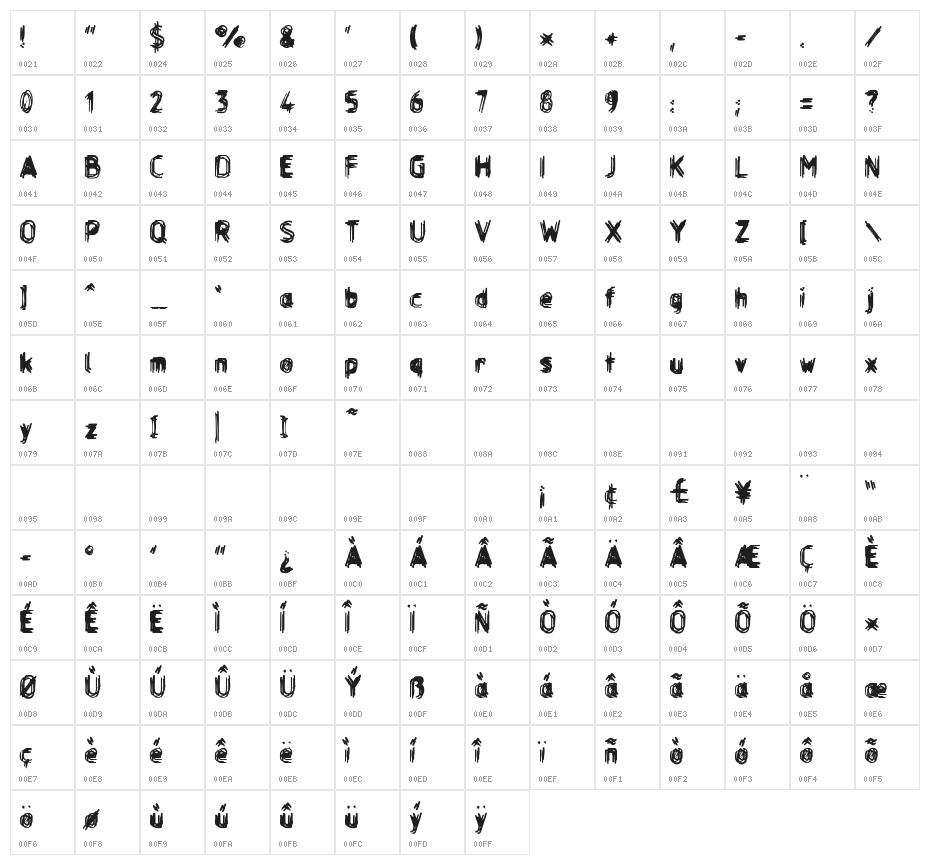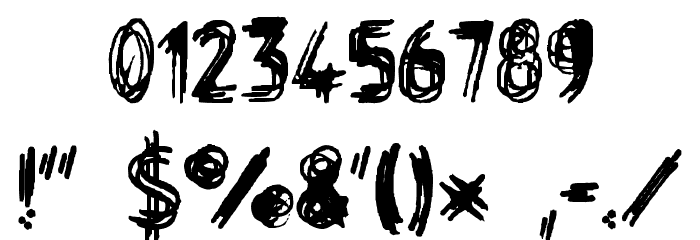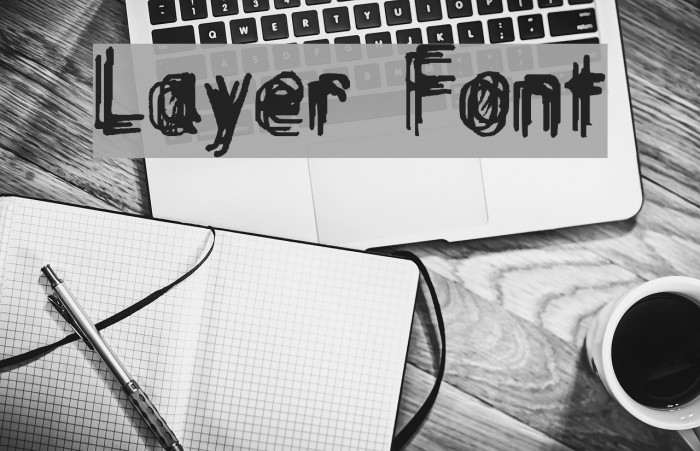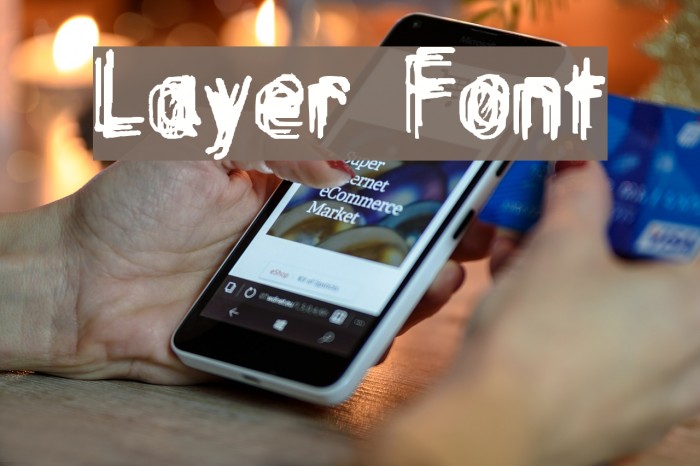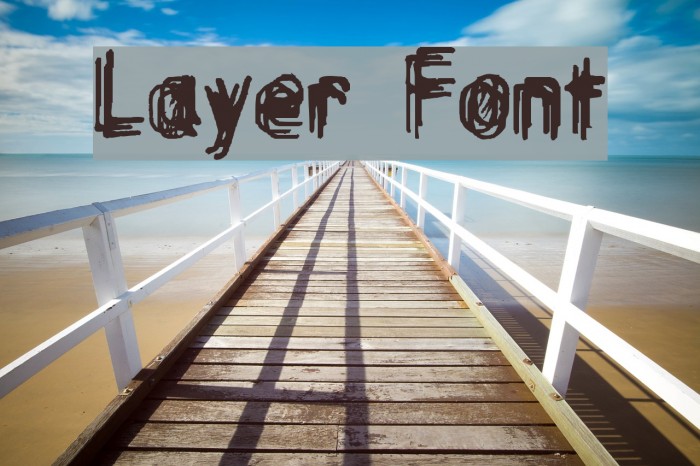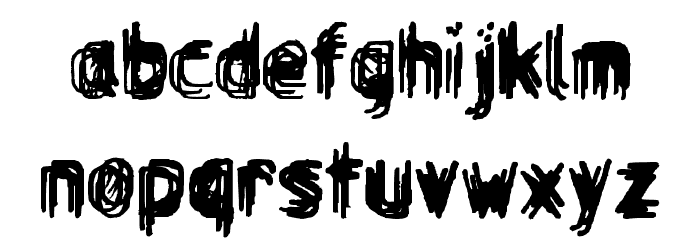
Layer Font
Layer Description
This font exhibits a bold and dynamic style, characterized by its rough, hand-drawn appearance. The letters are uneven and feature a distressed texture, giving them a raw and energetic feel. The uppercase and lowercase letters maintain a consistent style, with jagged edges and varying stroke thicknesses that create a sense of movement and spontaneity. The numerals and special characters follow the same aesthetic, adding to the font's cohesive look. This font is ideal for projects that require a bold statement or a creative, artistic touch.
| Use Case | Headlines, Logos, Artistic projects |
| Proposed Projects | Perfect for album covers, posters, graffiti art, and edgy branding projects. |